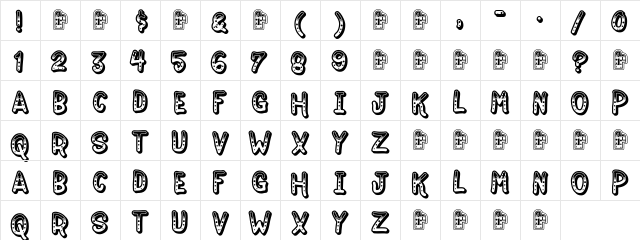
Jokewood Regular
Design Context for Jokewood
Jokewood echoes the hand-painted signage and woodblock typography of the American frontier, with a warm, rugged personality.
Font Pairing: Combine Jokewood with a simple slab or neutral sans - period-accurate companions reinforce the vintage feel without competing for attention.
Pro Tip: Use Jokewood for short, impactful bursts of text - it shines in poster headlines and product names rather than extended copy.